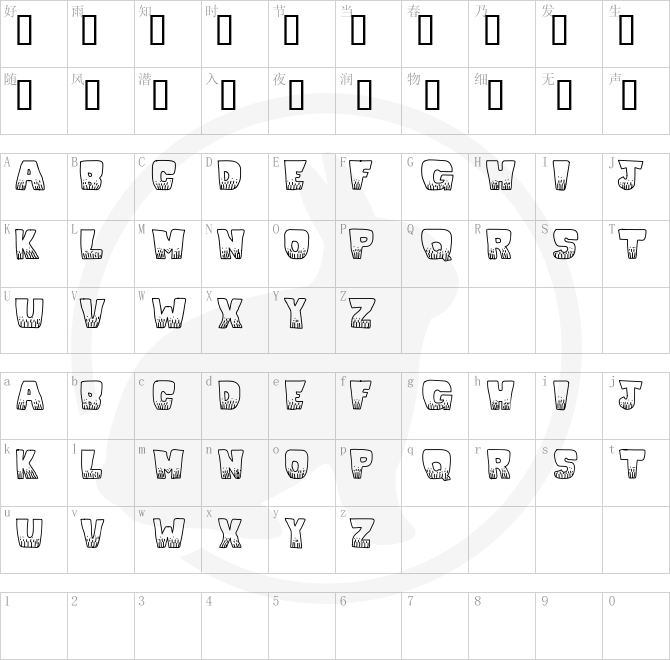
- Font Name:KaBlooie!
KaBlooie!.ttf is a very beautiful artistic font, KaBlooie!.ttf is widely used in the design and printing of various books and pictures,KaBlooie!.ttf has a strong visual impact,KaBlooie!.ttf is a commonly used font in newspapers, magazines and books, and is used in posters, e-commerce Poster design, store design, logo design, font design and other fields.KaBlooie!.